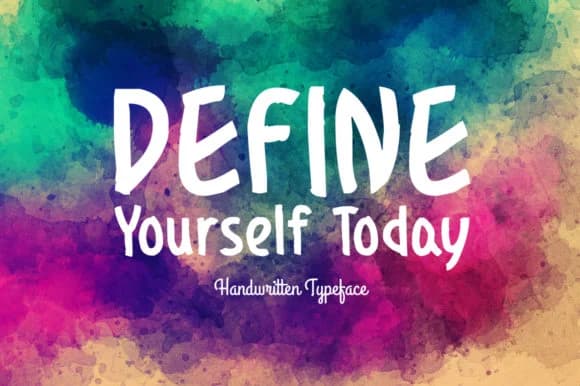
1 / 4About Define Yourself Today Font
Define Yourself Today by Spanking Fonts is a contemporary handwritten script that brings authentic pen-and-paper warmth to your digital creative projects. The casual, flowing letterforms work beautifully across a wide range of creative applications, from intimate wedding invitation suites to eye-catching social media graphics that stand out in crowded feeds. Whether you're designing custom t-shirt prints or crafting personalized greeting cards for a growing small business, this typeface delivers genuine personality and visual warmth that feels naturally handmade rather than mechanically generated. The script excels at bridging the gap between traditional handwriting and contemporary design aesthetics. It proves particularly effective for product packaging and distinctive labels on artisanal goods, vinyl record artwork, event posters that demand immediate attention, and blog headers that need authentic character. The letterforms balance practical legibility with expressive visual style, making the font equally suitable for bold headlines and secondary text applications across different mediums and print platforms. Its approachable personality works beautifully for boutique branding and independent creative ventures seeking that coveted handmade aesthetic. Transform your creative projects with Define Yourself Today, head over to Creative Fabrica and grab this font to add authentic handwritten character to your designs.
Define Yourself Today Font is a script font that shines as a display or heading face. Pair it with a clean sans-serif or serif font for body text β the contrast creates a clear hierarchy while the two styles stay balanced and easy to read.